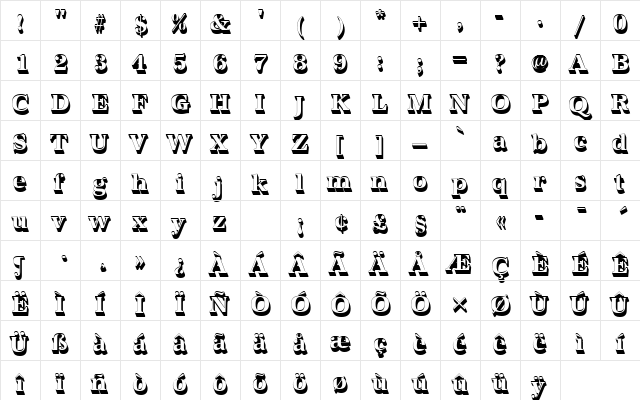
URWAntiquaTBolSh1 Regular Font Preview
URWAntiquaTBolSh1 Regular
Design Context for URWAntiquaTBolSh1 Typeface
URWAntiquaTBolSh1 is a composed and adaptable typeface that performs quietly and consistently across a wide range of design contexts.